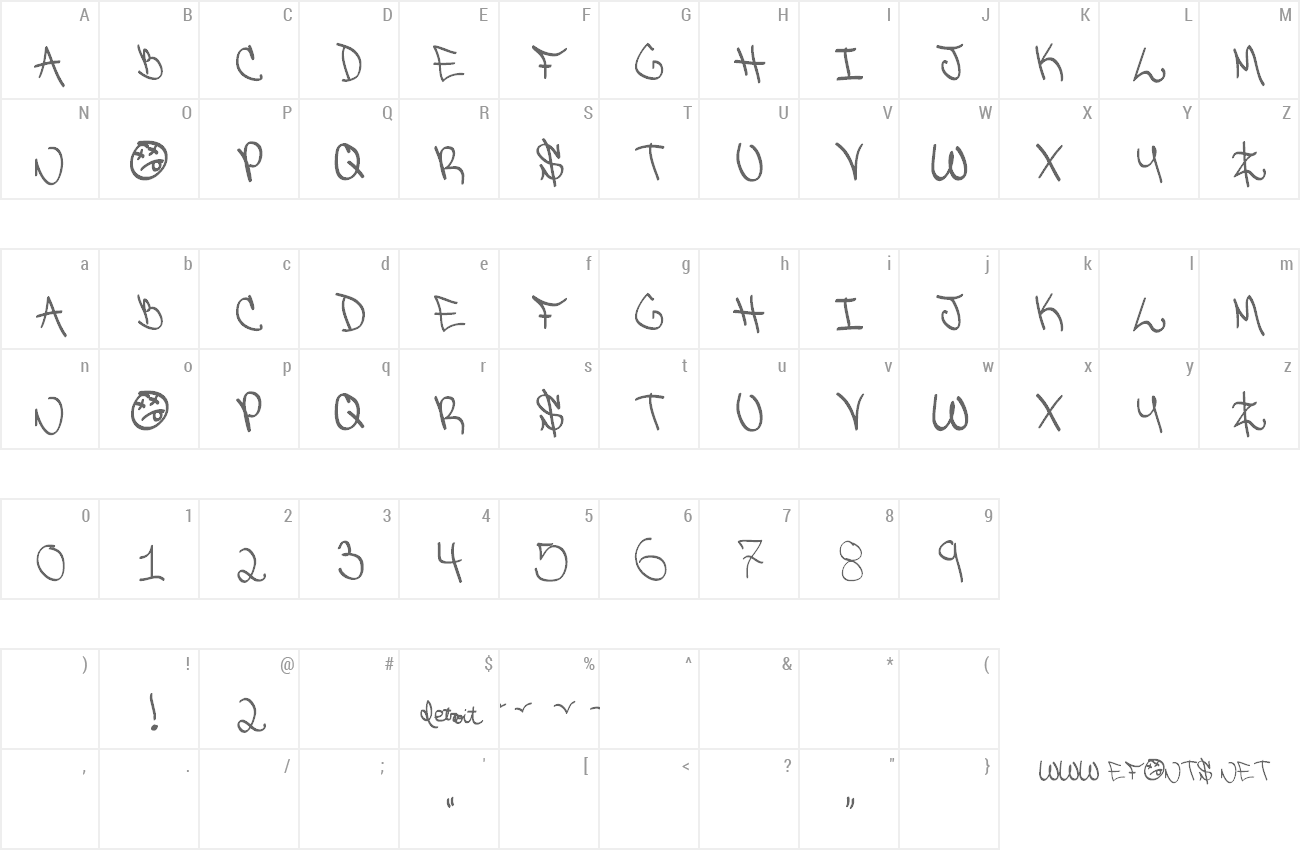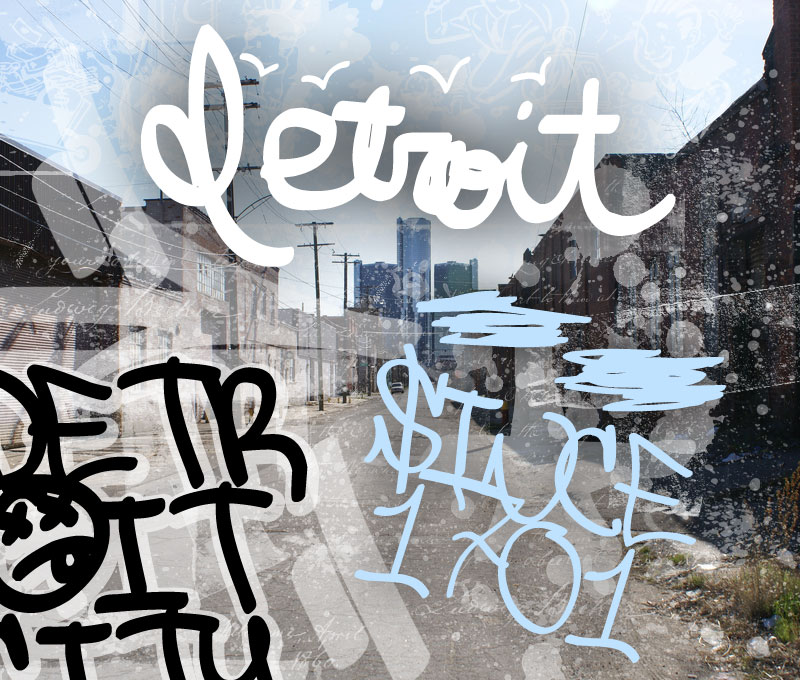
Preview and download Detroit Ghetto Font. Created by Ronald Jackson in Script Graffiti styles with Shareware license.
| This "Detroit Ghetto" font was created after walking through the Eastside slums of Detroit, Michigan, USA. |